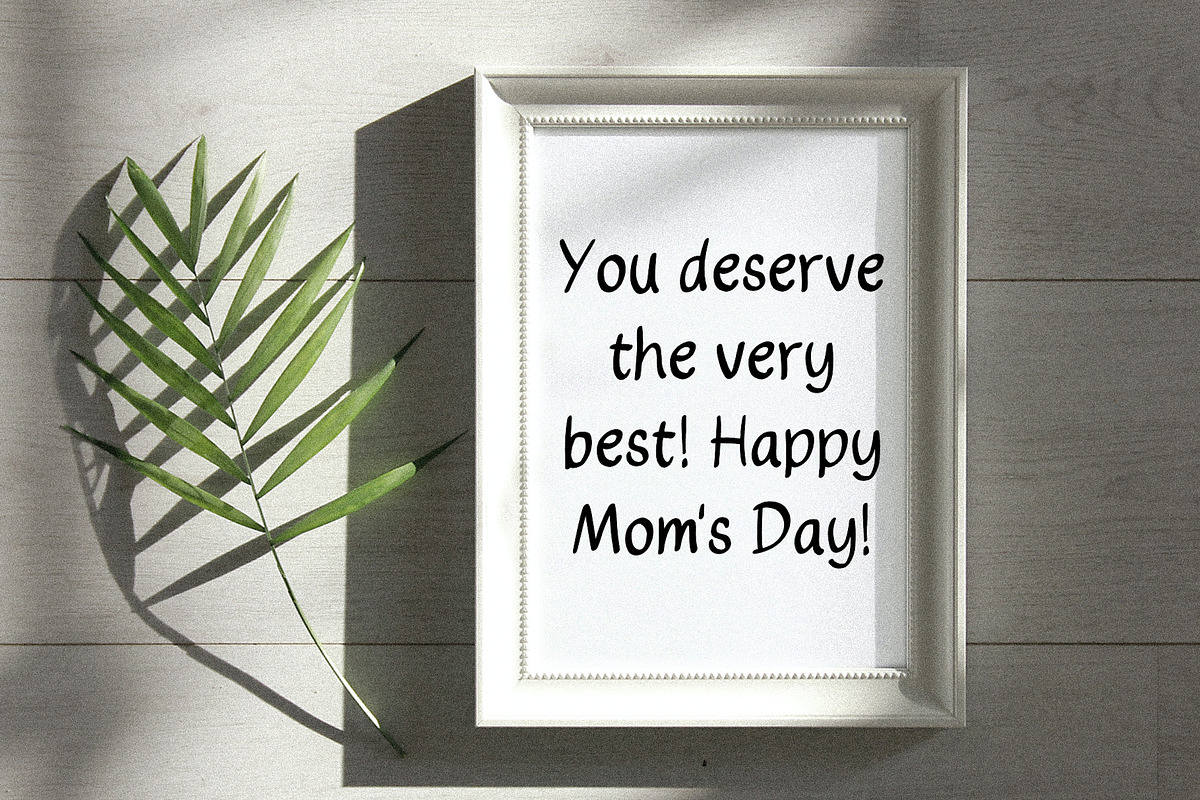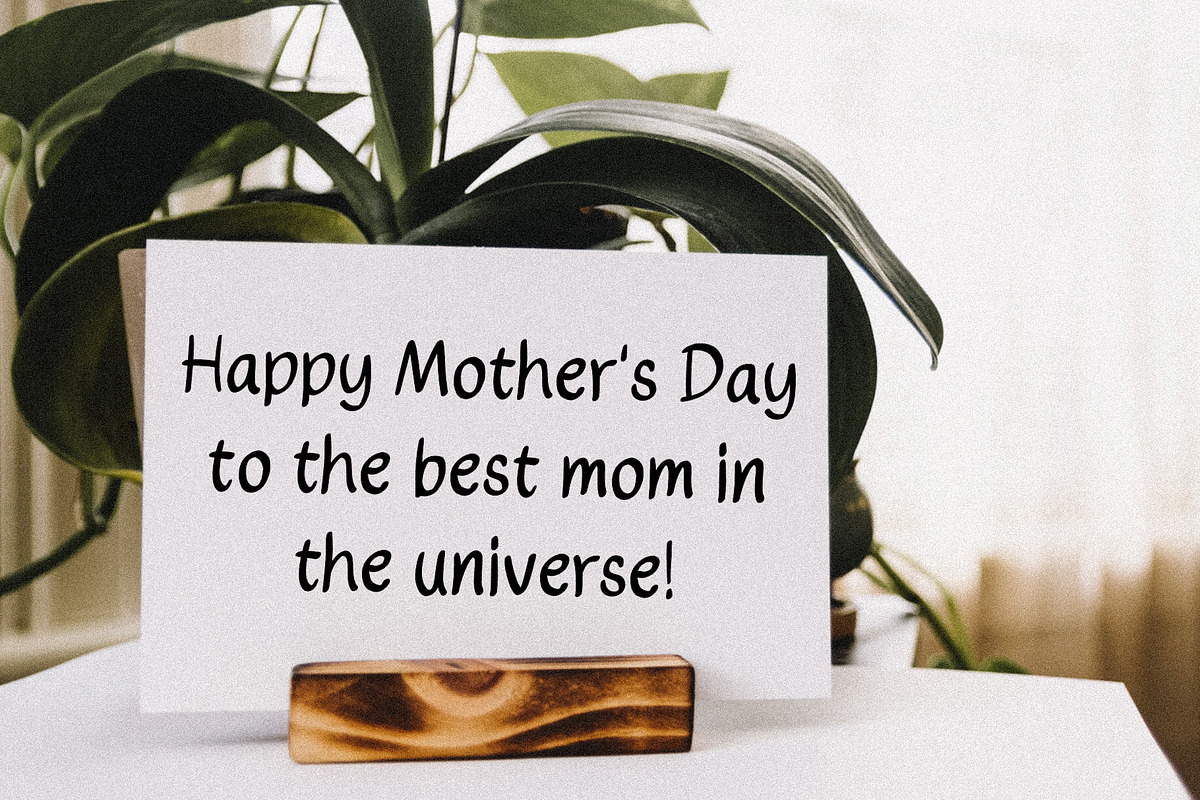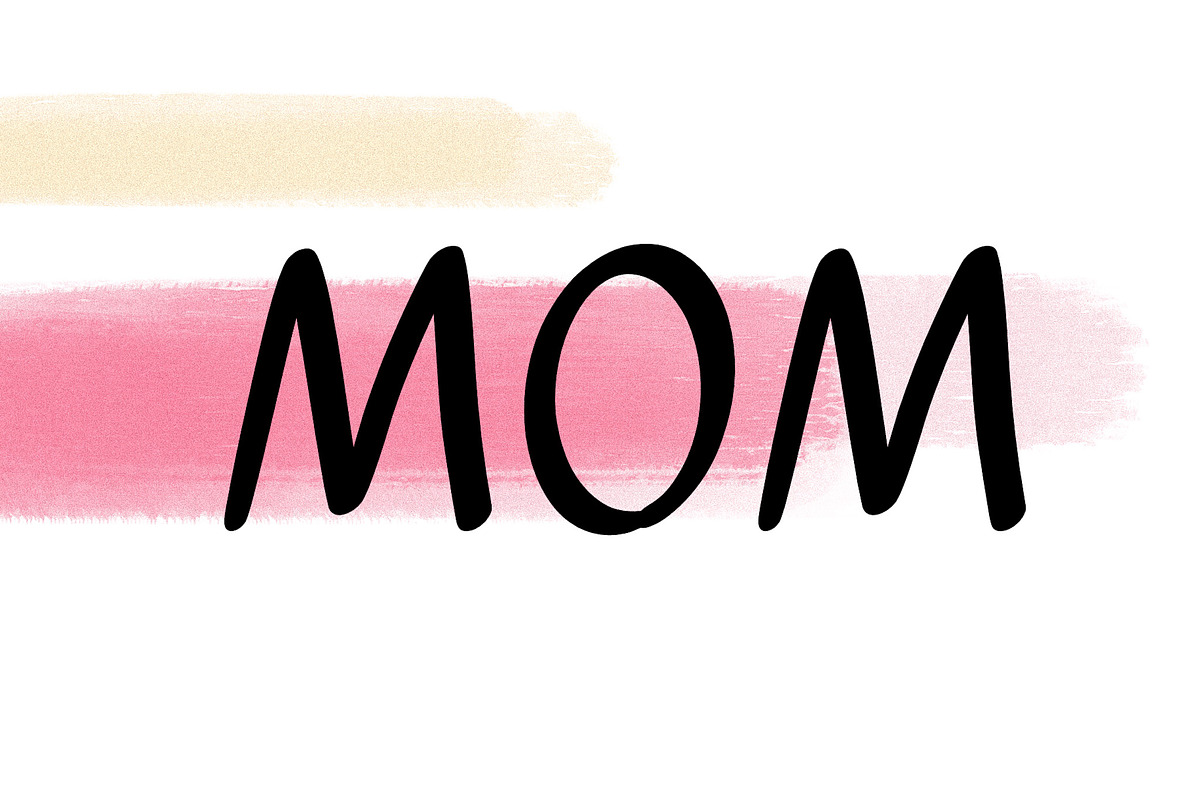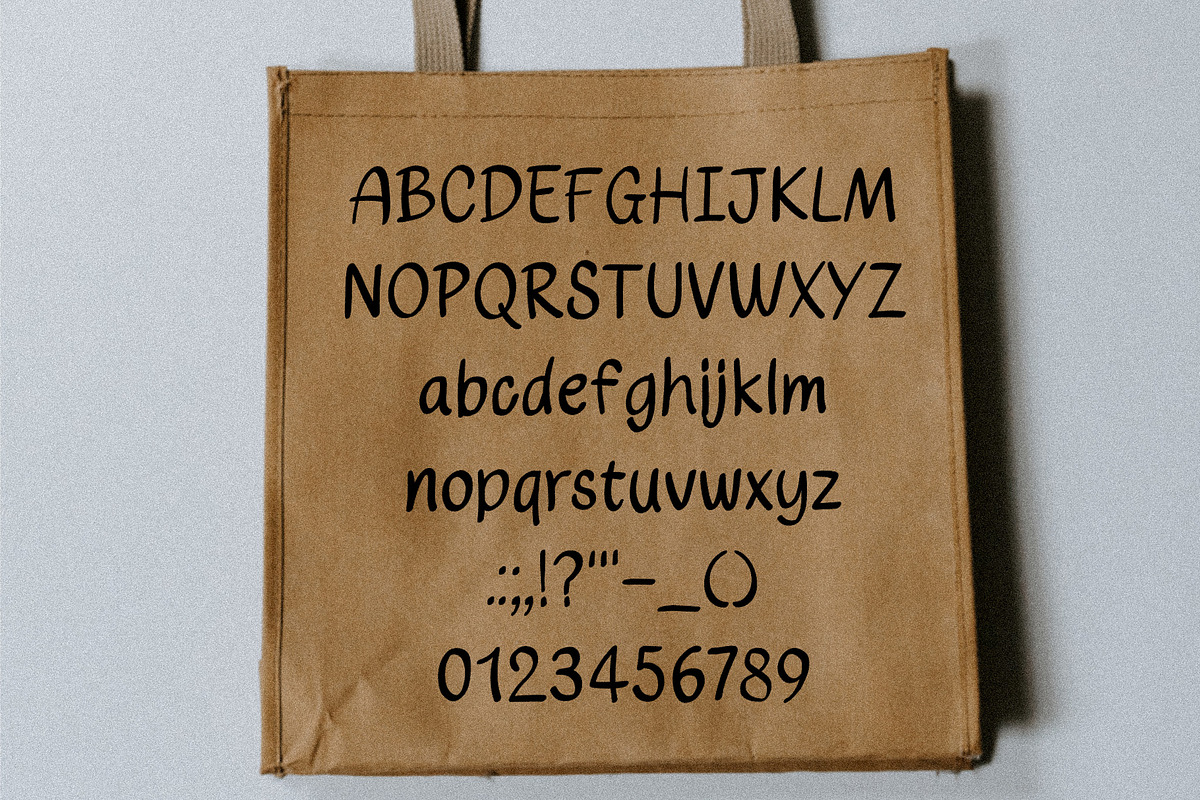
MOM
Introducing the MOM font - the font that celebrates the bond between mother and child! Are you looking for a font that's perfect for your projects related to motherhood and family? Look no further than the MOM font! MOM is a beautiful script font that celebrates the special bond between mother and child. Whether you're creating a card, designing a poster, or crafting a social media post, the MOM font will help you create a heartfelt and memorable design. With its graceful and flowing lines, the MOM font is perfect for any project that needs a touch of elegance and love. And the best part? The MOM font is easy to use! The font comes in multiple formats, so you can use it in any design software you prefer. Plus, the font is fully customizable, so you can adjust the size, color, and other details to fit your project perfectly. So why wait? Celebrate the bond between mother and child with the MOM font today! Visit our website to download the font and start using it in your projects. Your audience will be touched by the heartfelt message you create with this font.